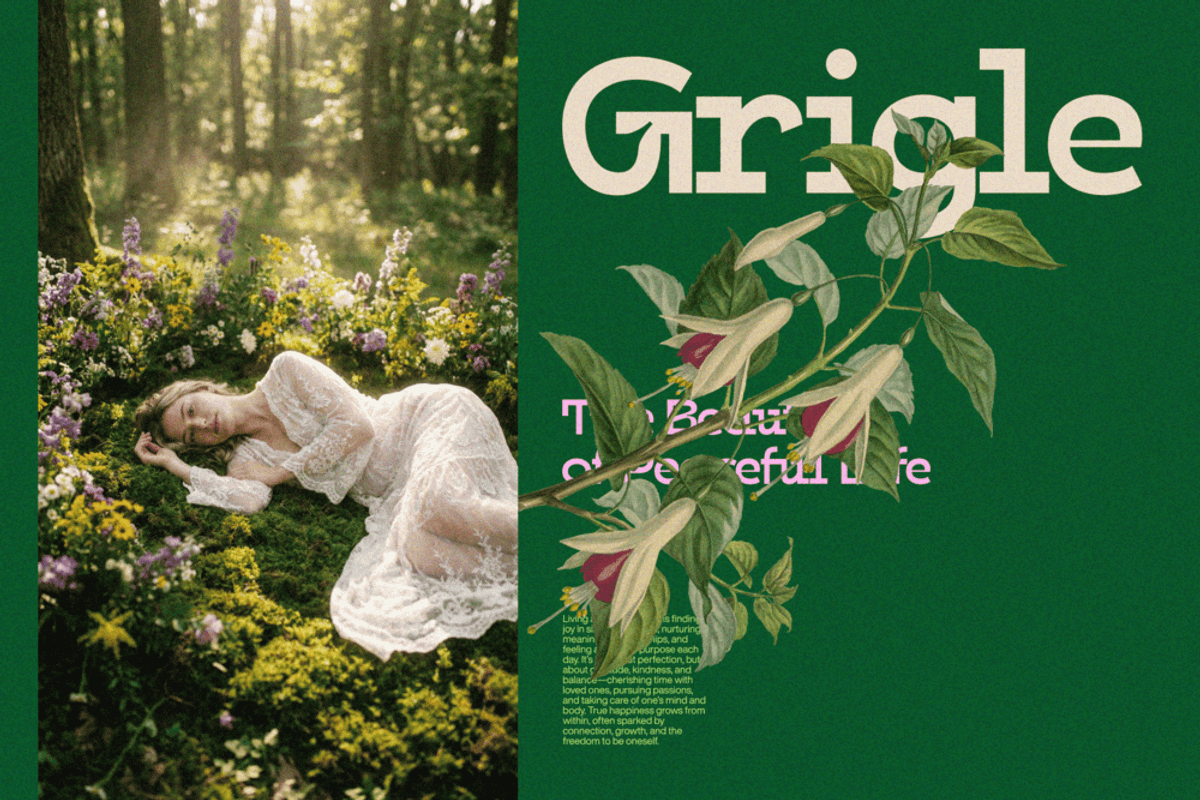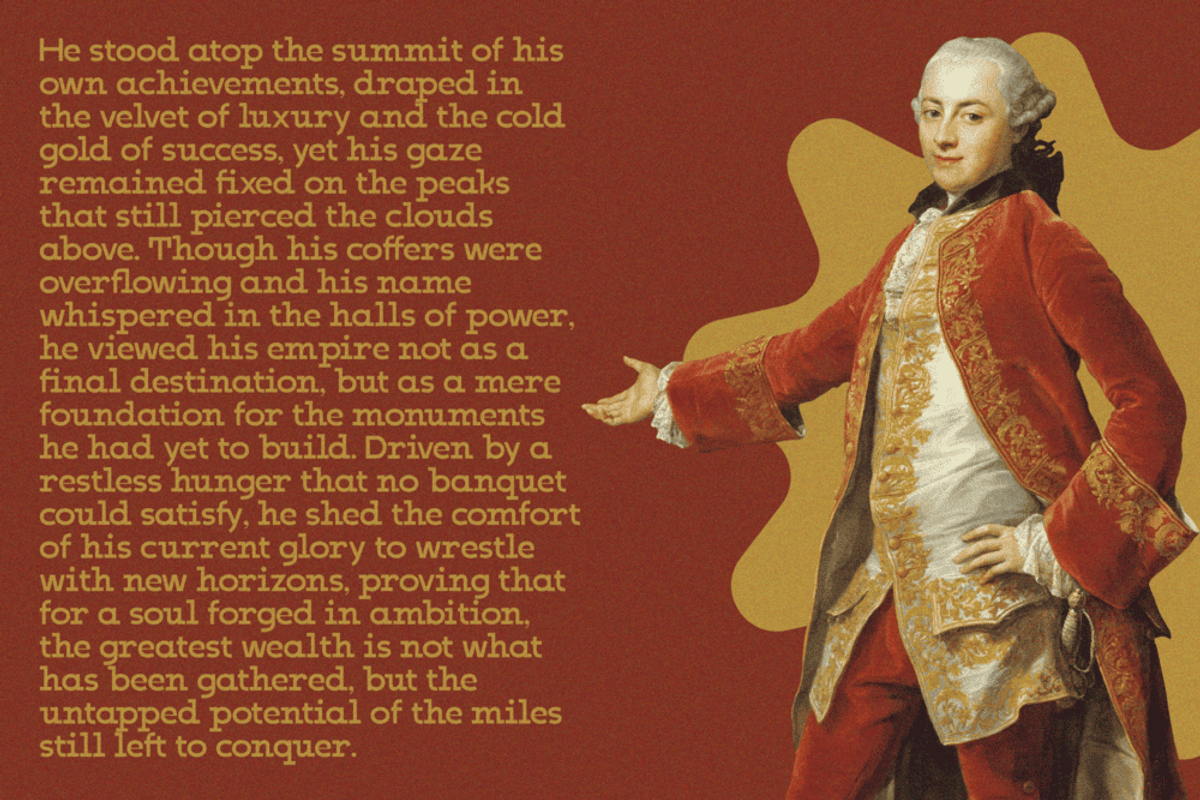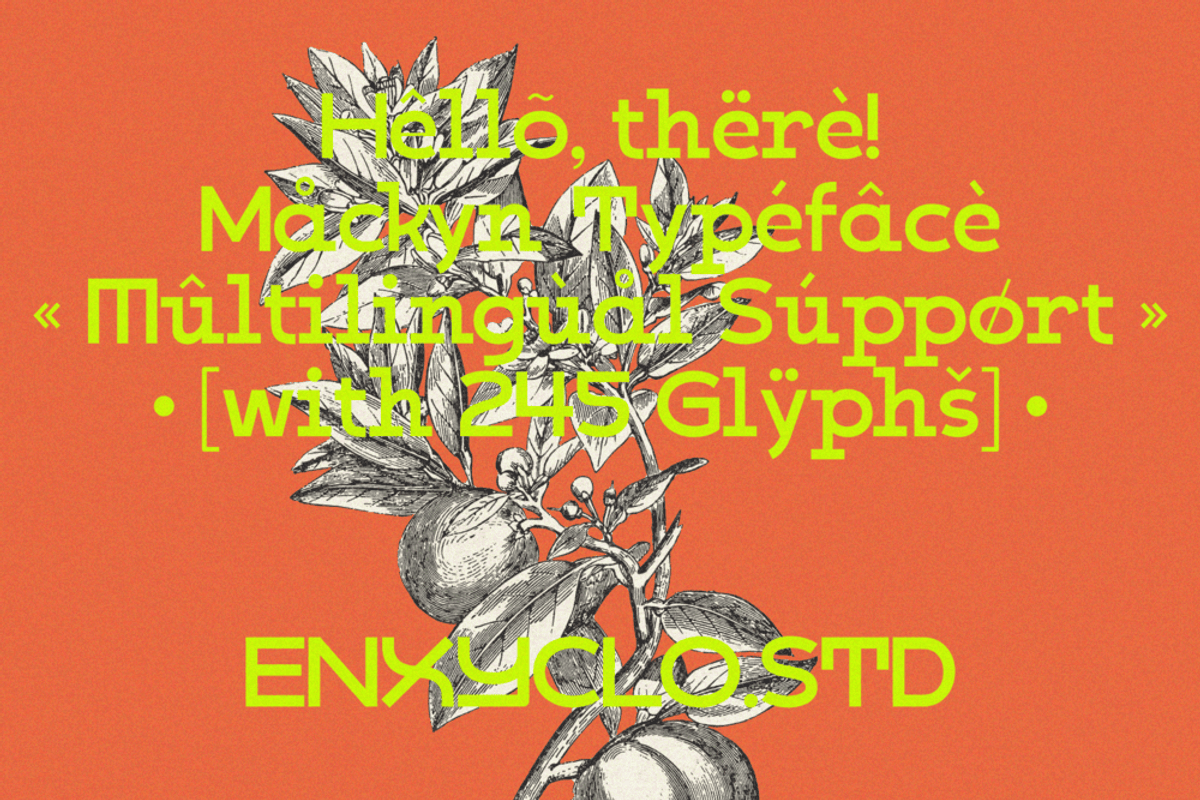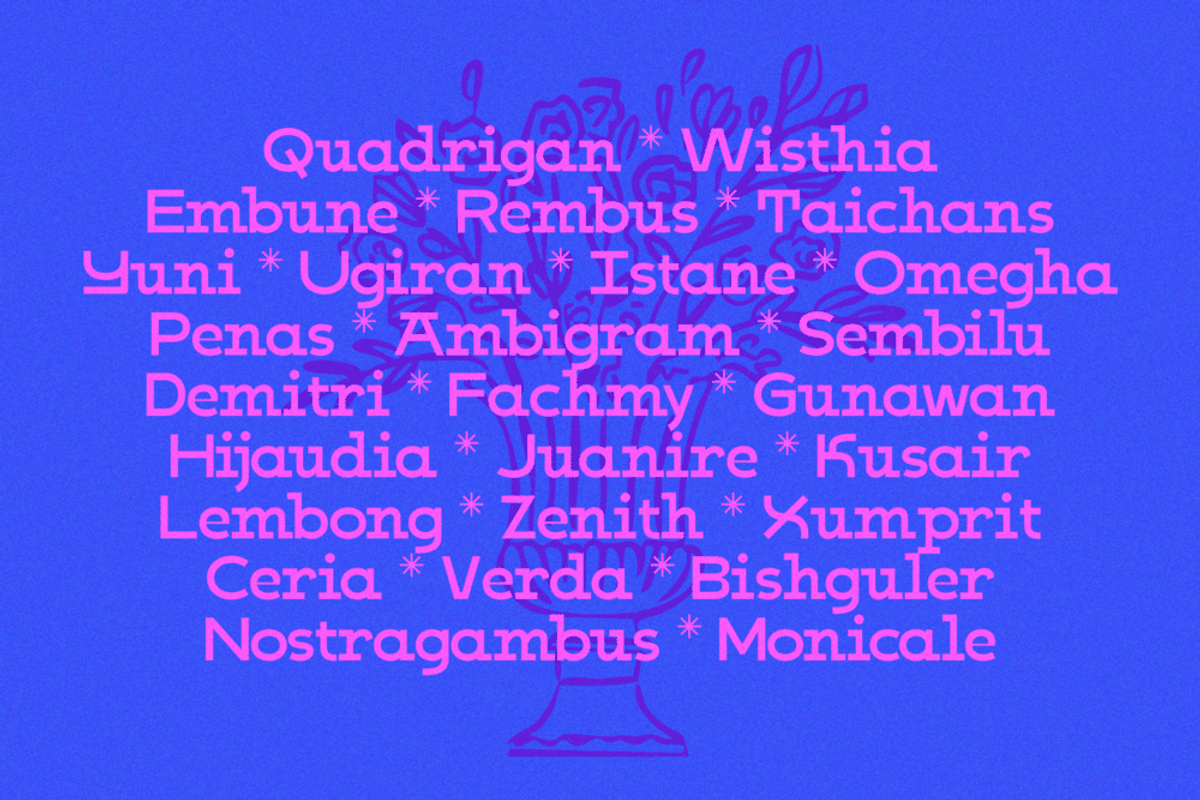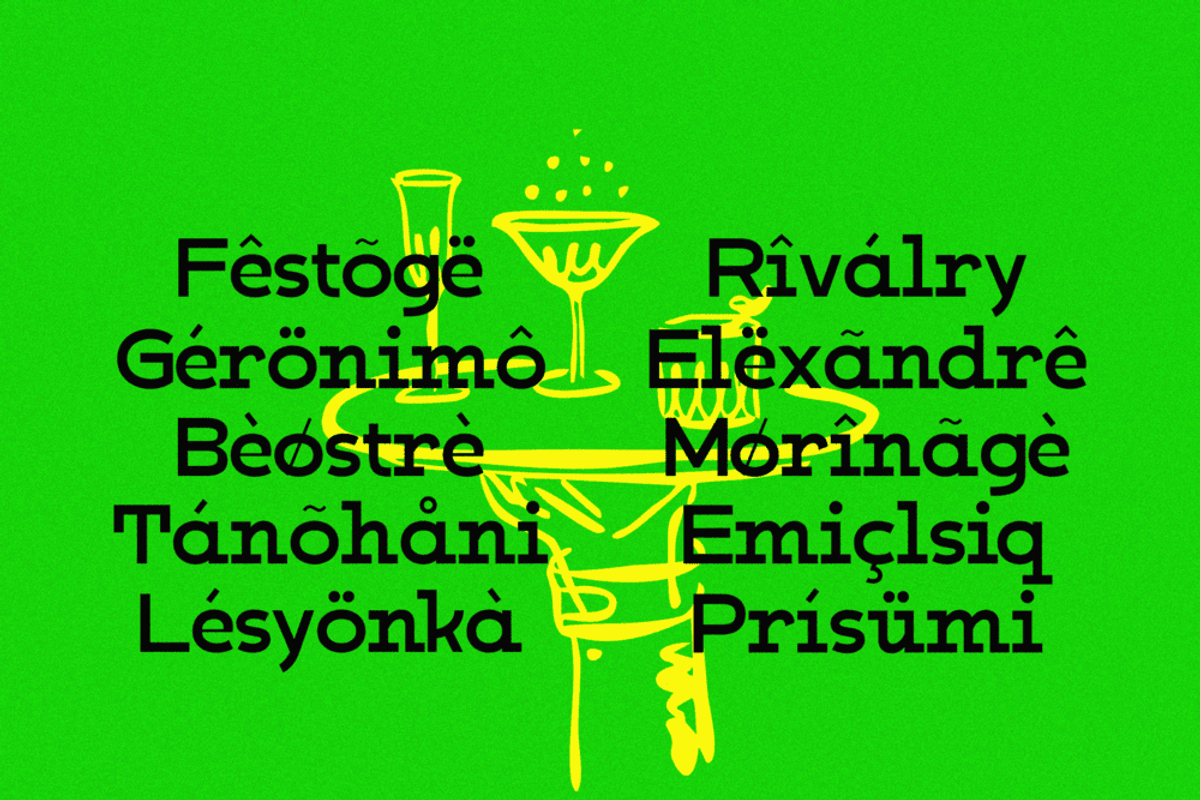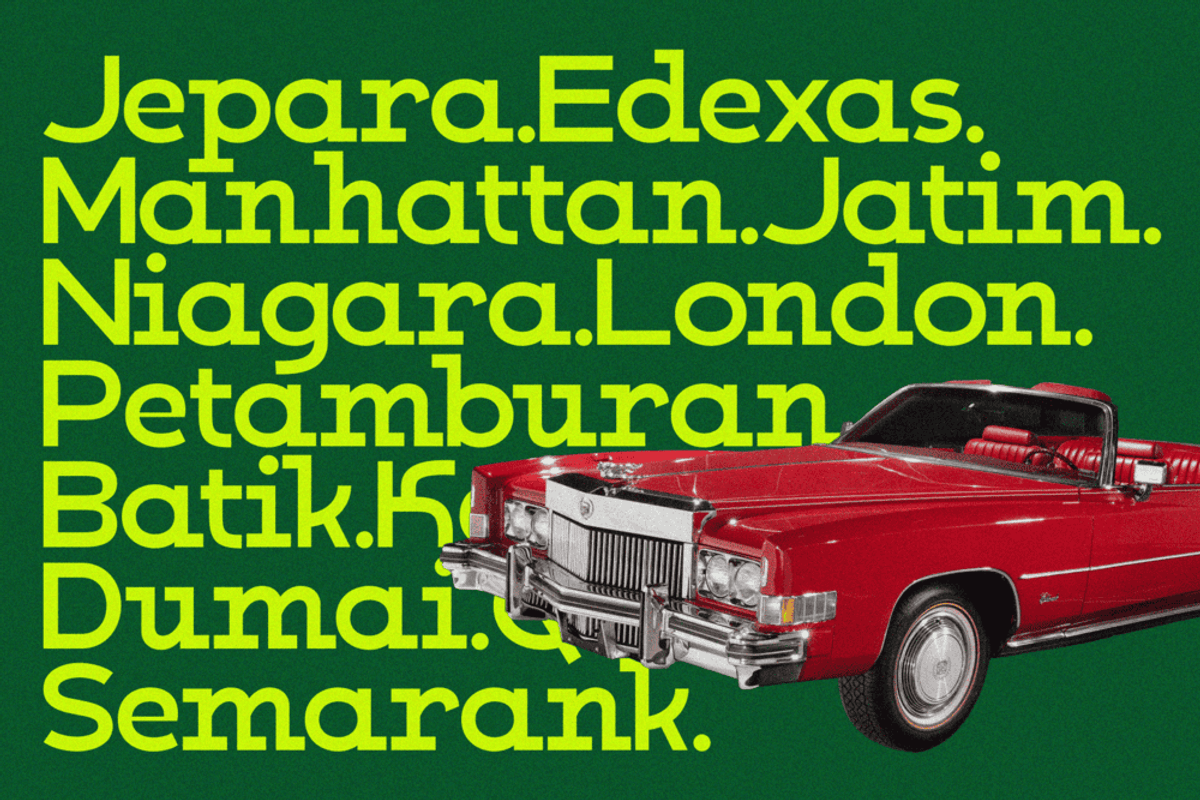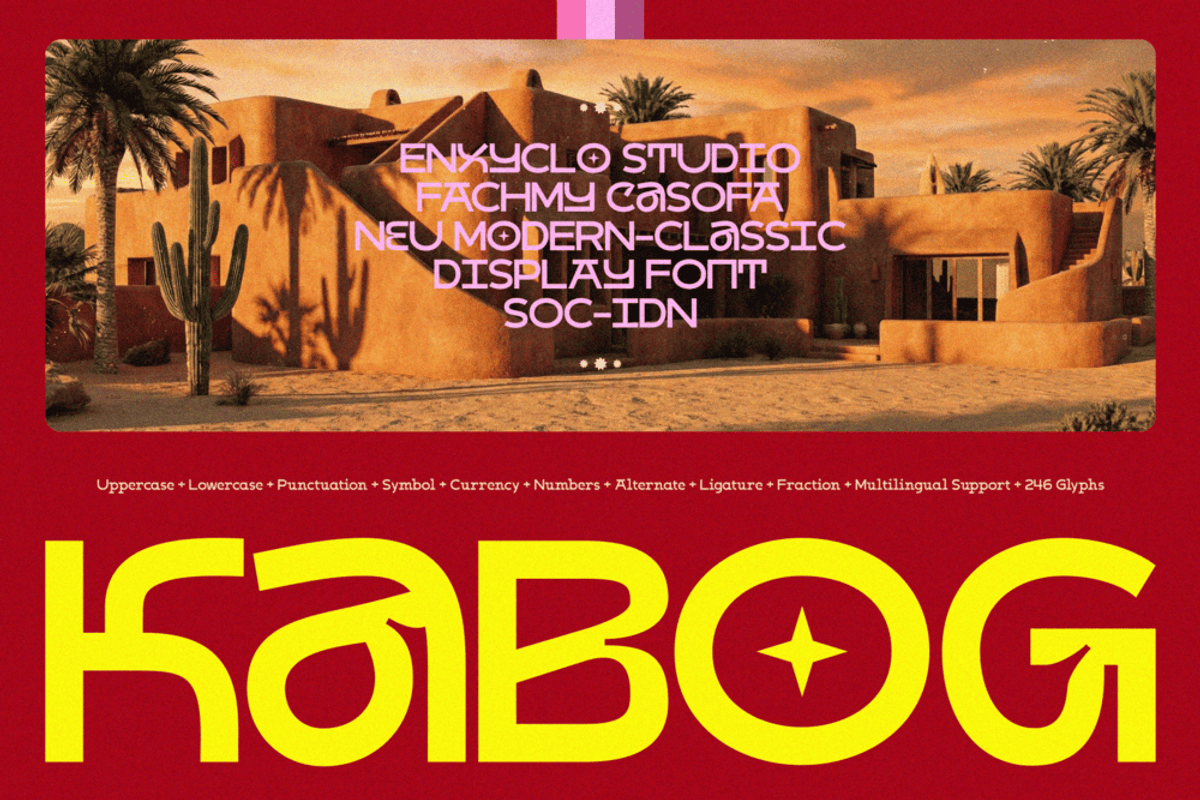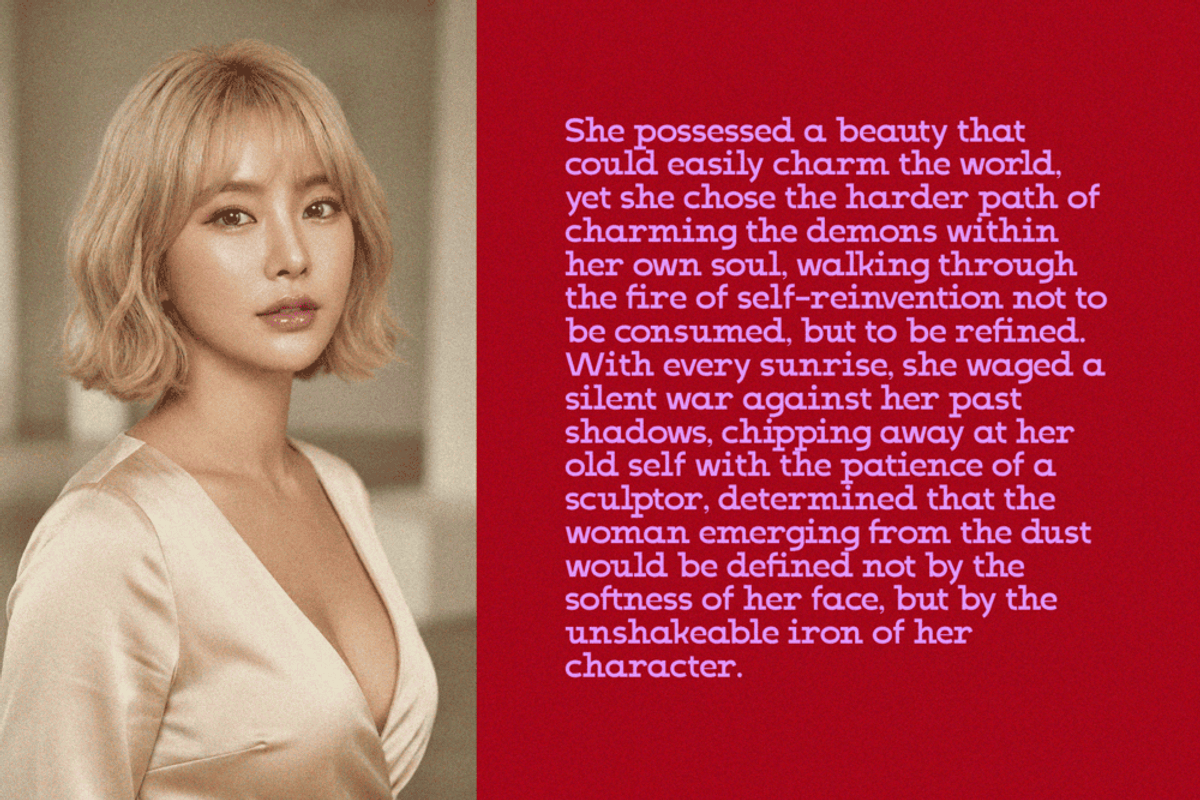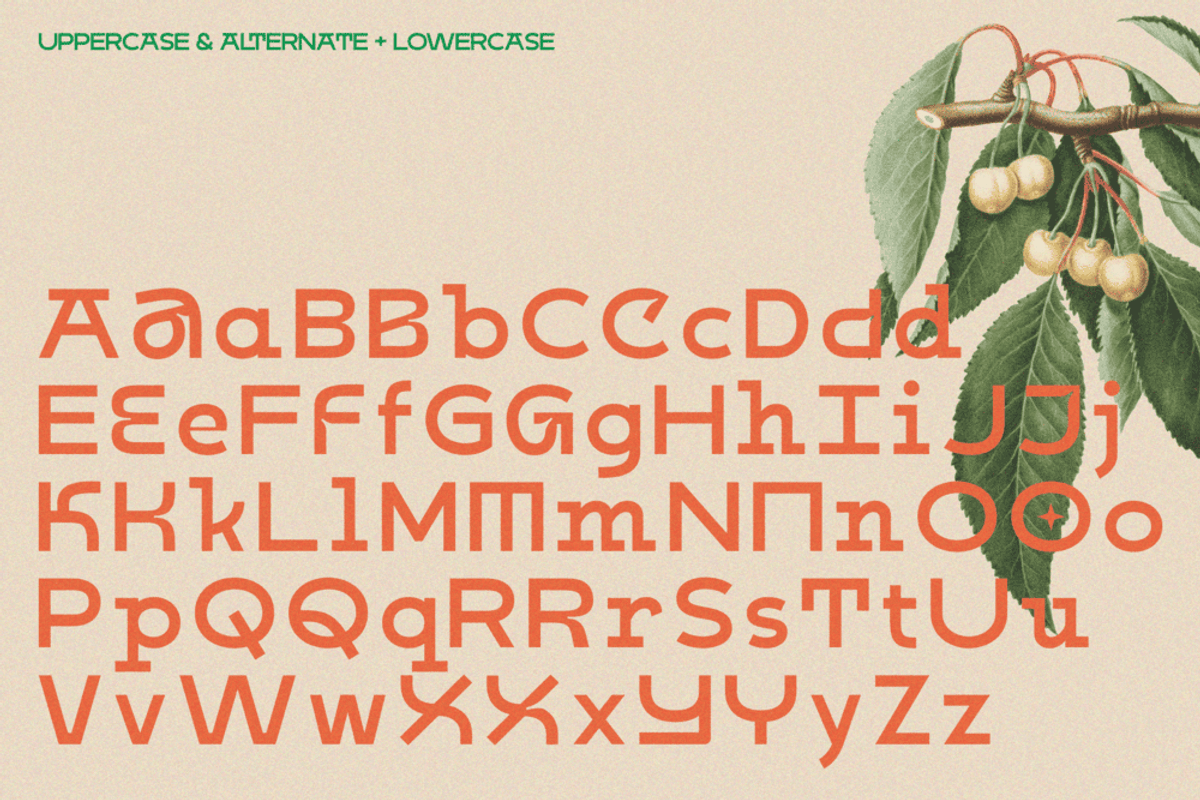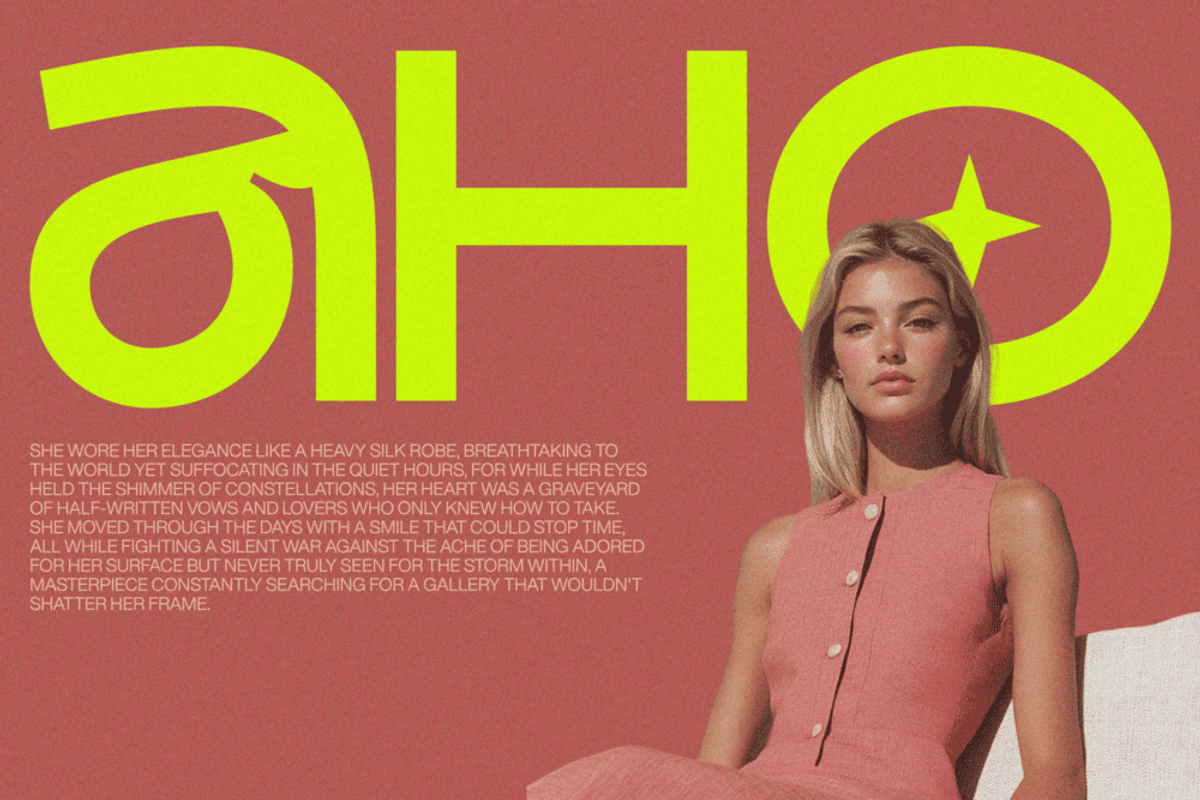
Kabog — Modern & Classic Font
KABOG is a modern logo font that blends contemporary clarity with a timeless classic touch. Designed with clean lines, balanced proportions, and carefully crafted ligatures, KABOG delivers a minimal yet bold presence that feels elegant, premium, and confidently modern.
This font is built for strong brand identities. Its refined structure makes it ideal for logotypes, brand logos, and creative logo designs that demand clarity and sophistication. KABOG’s modern–classic character allows it to adapt seamlessly across industries—luxury brands, creative agencies, photography studios, travel labels, and modern YouTube creators alike.
With its clean aesthetic and subtle elegance, KABOG elevates visual storytelling while keeping your design sharp, professional, and contemporary. It’s a versatile font for logos that communicates trust, creativity, and premium quality in every letter.
FEATURE
- Uppercase letters
- Lowercase letters
- Punctuation marks
- Symbol set
- Currency symbols
PERFECT FOR
- Brand Logo & Logotype
- Modern & Luxury Branding
- Creative Agency Identity
- Photography & Travel Logos
- YouTube Channel Branding
- Minimal & Contemporary Design
- Premium Corporate Branding